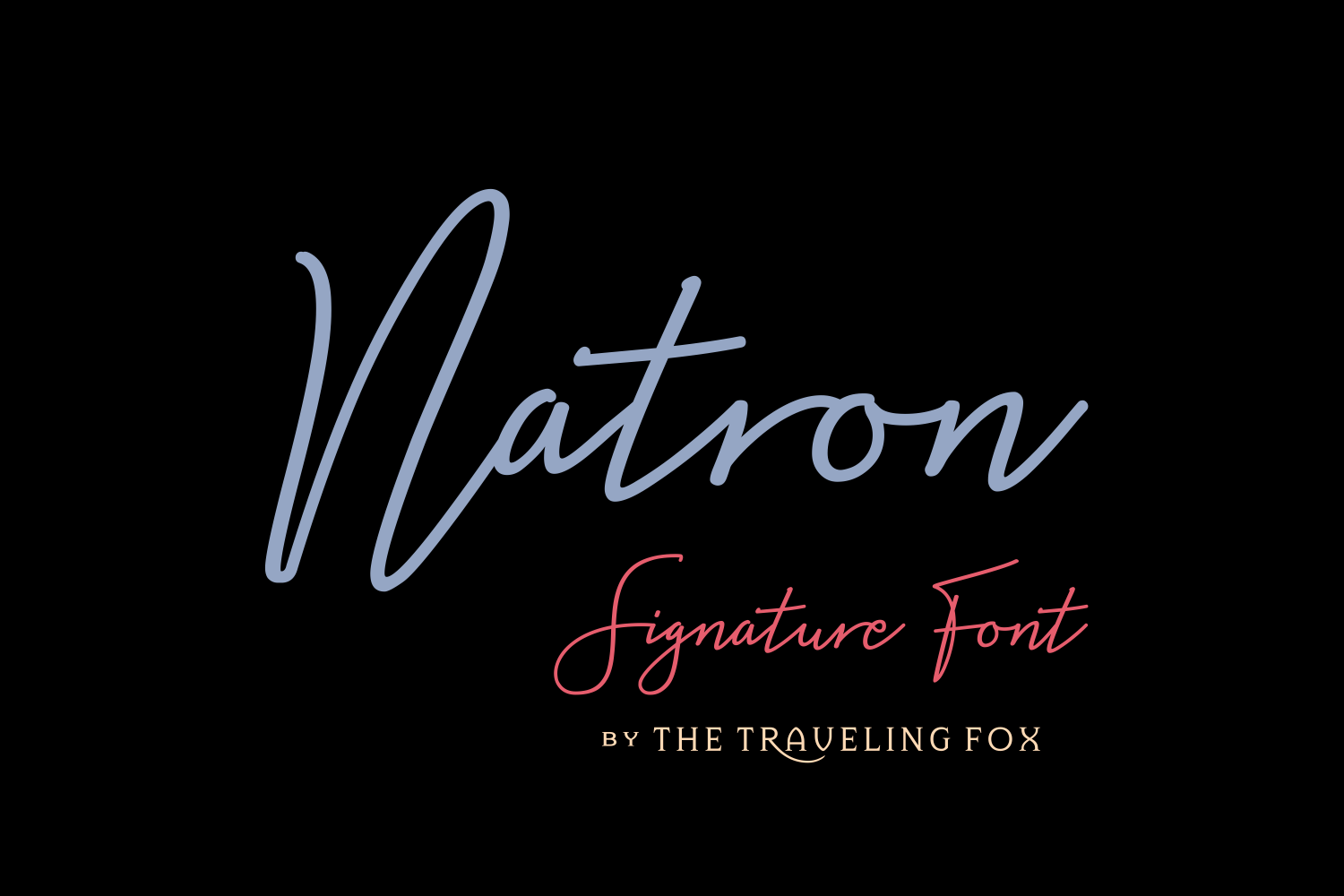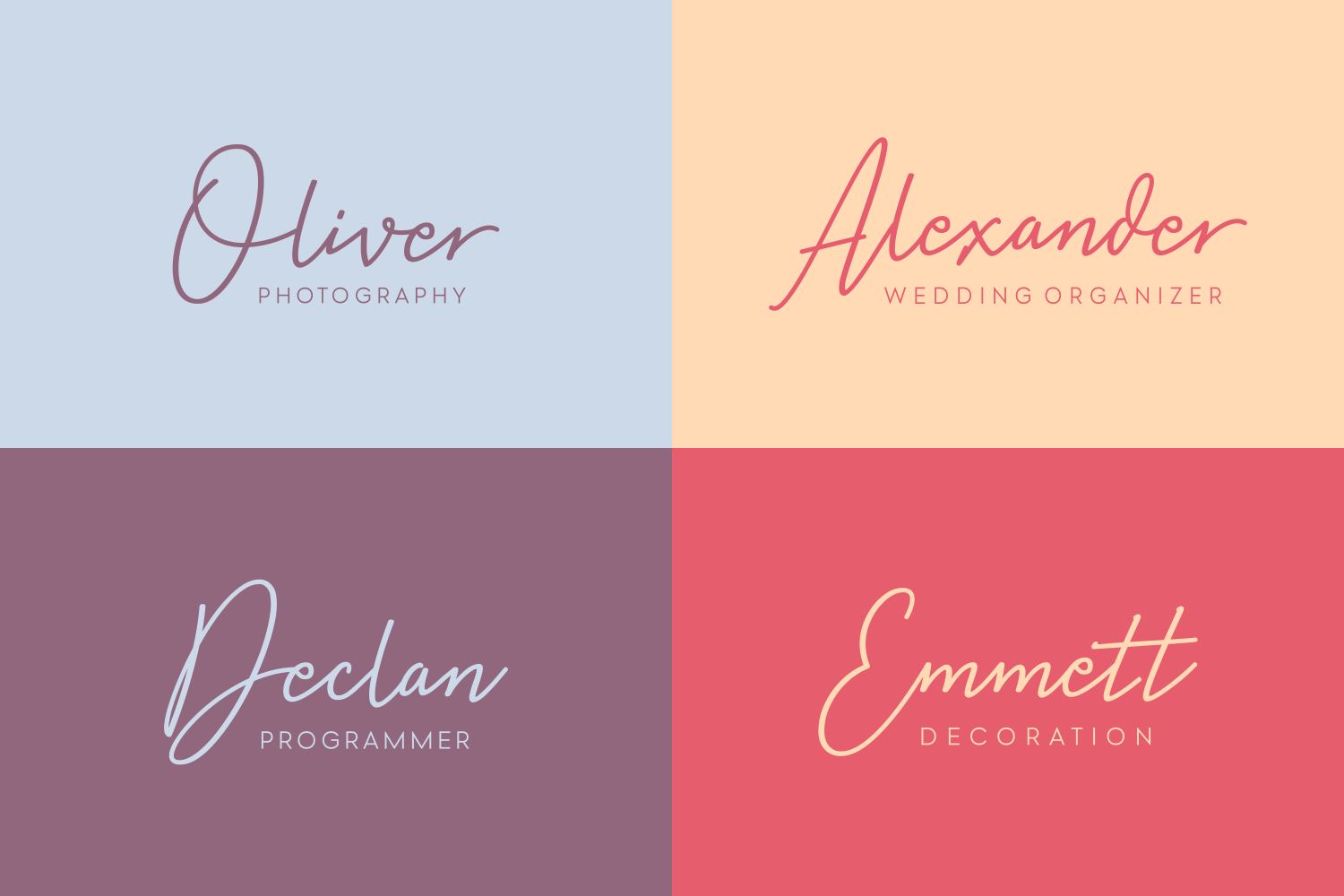
Natron Font
About Natron Font
Natron, an elegant monoline signature font.
The Natron has a solid, rounded look which give this font a super friendly face.
It works great for signing corporate documents as well as adding handwritten texts to your emails, word docs or designs.